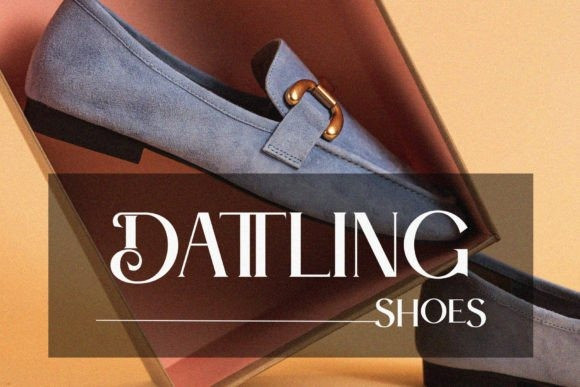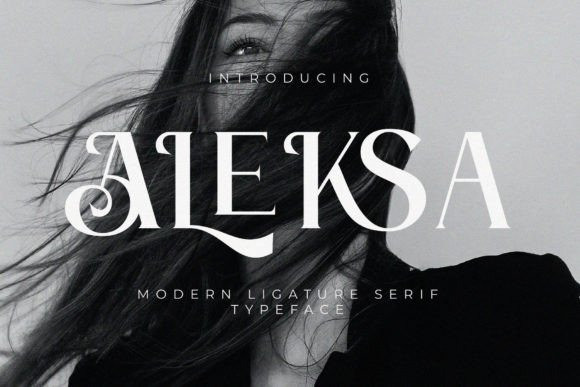
Aleksa Font
Aleksa Font is an elegant and classy serif typeface. This font is both modern and nostalgic and works great for logos, magazine, social media. Already matched up and ready to be used together for your next design! For those of you who are needing a touch of elegant, stylish, classy, chic and modernity for your designs, this font was created for you!